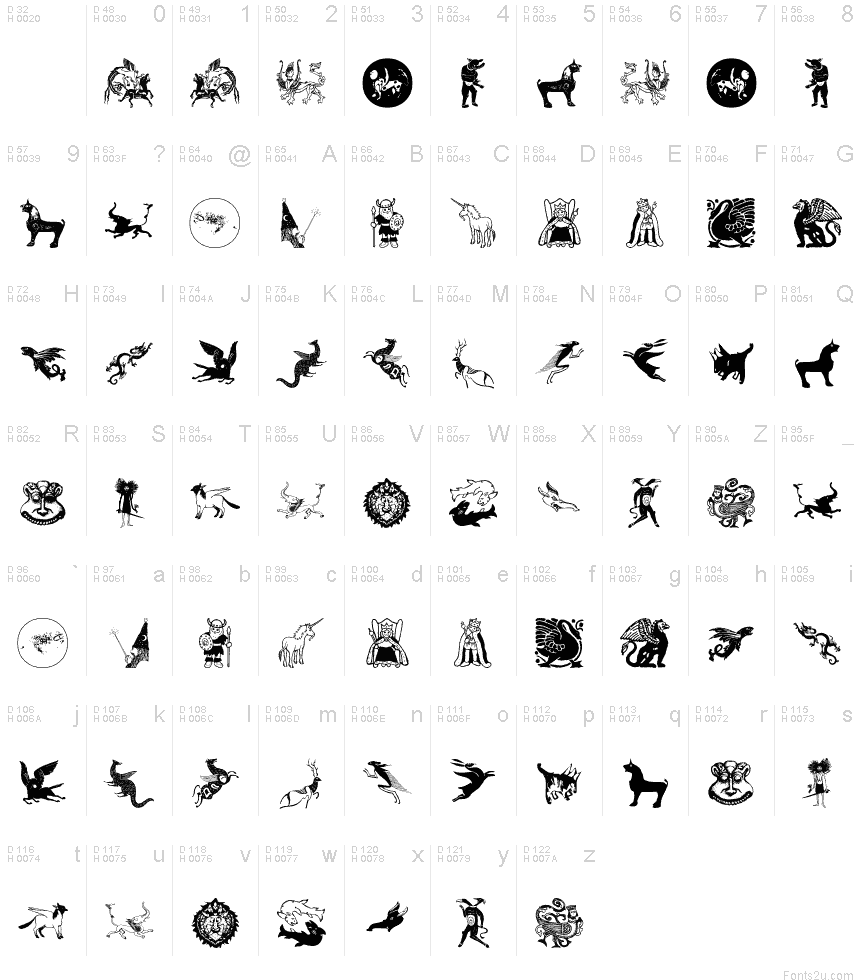
Mythological by Manfred Klein is a free Roman-inspired display font presenting legendary figures and beasts in a lively procession of stark, hand-drawn silhouettes. Every character reads as an emblem from an old storybook.
A mythology museum, classical theater company, or heritage publisher could use it for posters, programs, and educational graphics. Gods, winged animals, heraldic creatures, and hybrid monsters also make a memorable illustrated cast for game packaging and festival merchandise.